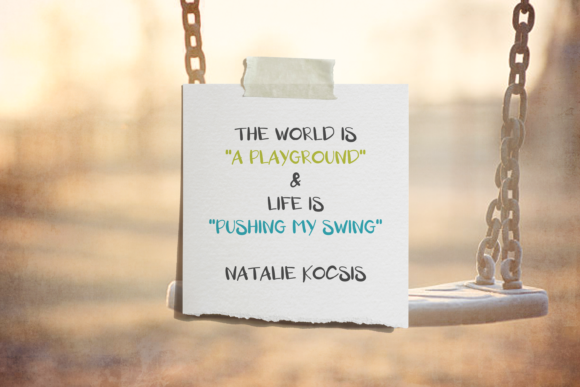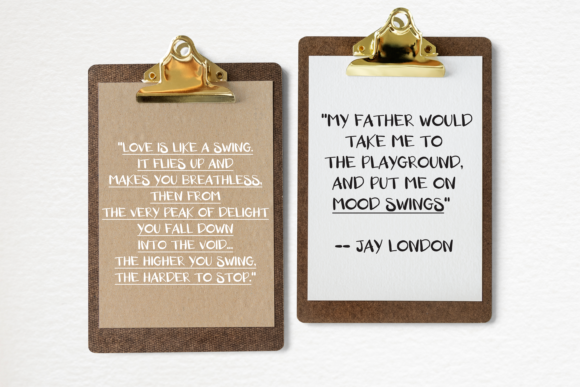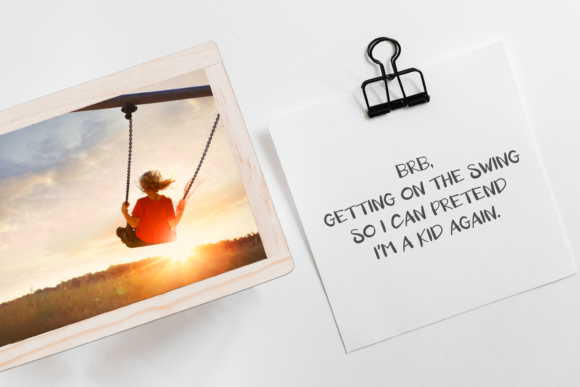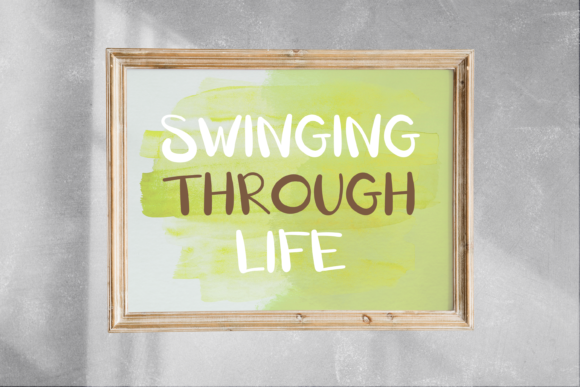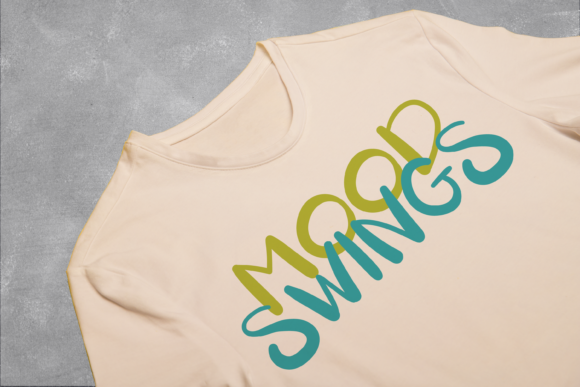
Introduction to Playground Swing Font Font
Fonts play a crucial role in design, and the Playground Swing Font font is a typeface that brings both character and versatility to any project. Whether you’re working on a branding project, a website, or a print design, the Playground Swing Font font offers a unique style that can elevate your work.
Playground Swing is a playful and bouncy display font.
Get inspired by its incredibly youthful feel and create outstanding designs .
Key Features of Playground Swing Font Font
Why Choose Playground Swing Font Font?
The Playground Swing Font font is more than just a typeface – it’s a design tool that helps you communicate your message with style and clarity. Its unique character set and versatile design make it suitable for a wide range of applications, from elegant invitations to bold headlines.
With its carefully crafted letterforms and balanced proportions, the Playground Swing Font font ensures readability and visual appeal across all mediums.
What makes Playground Swing Font font special?
The Playground Swing Font font stands out with its unique design, exceptional readability, and versatility across various design applications.